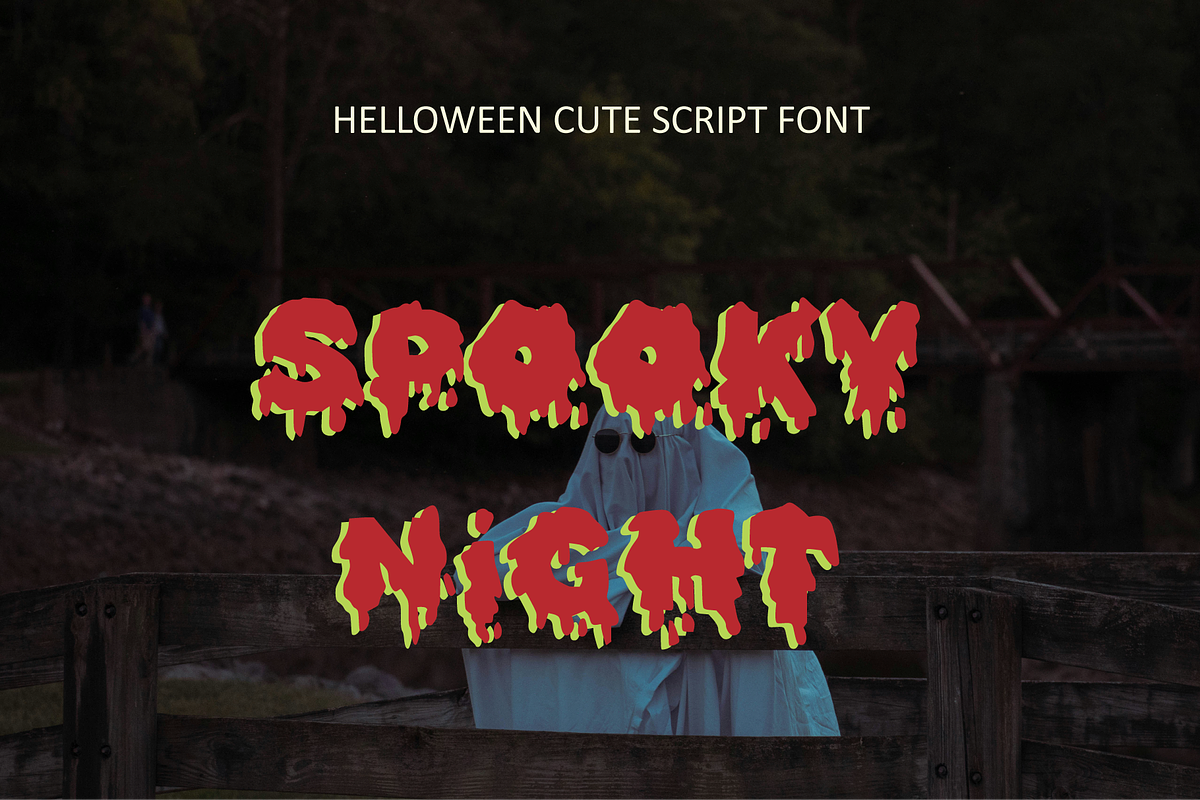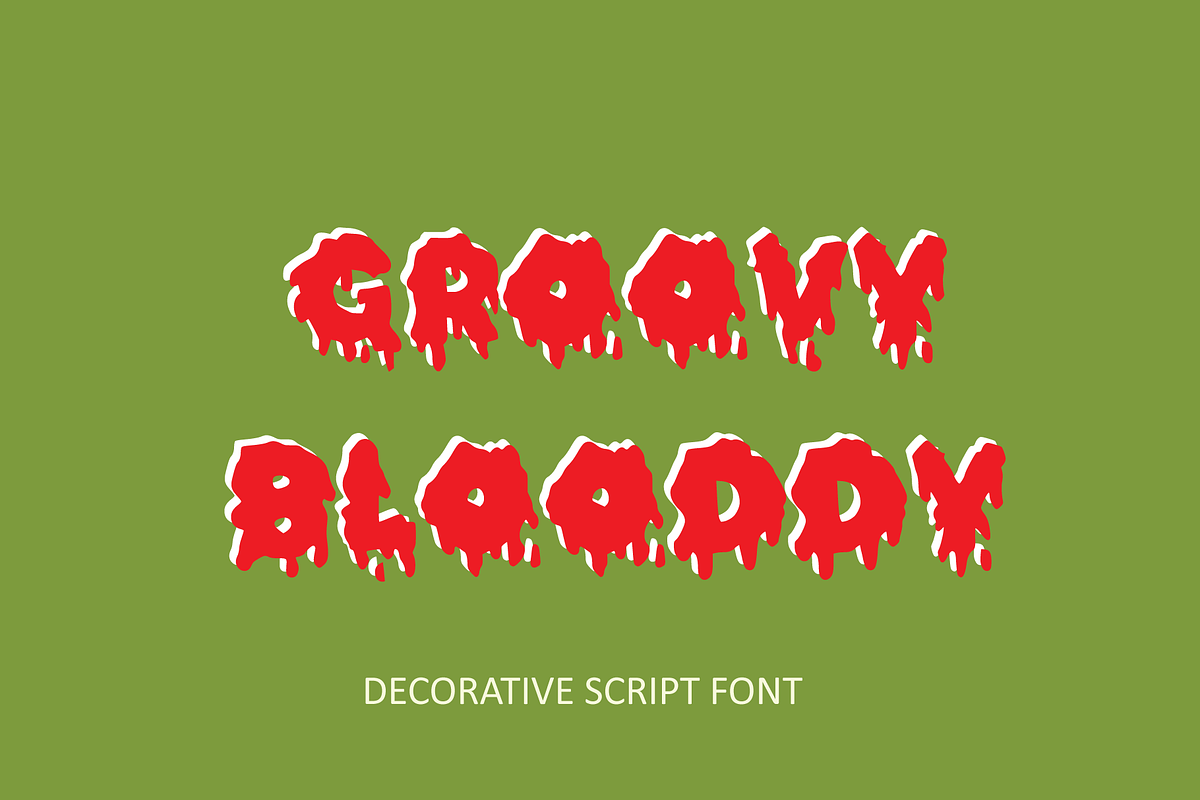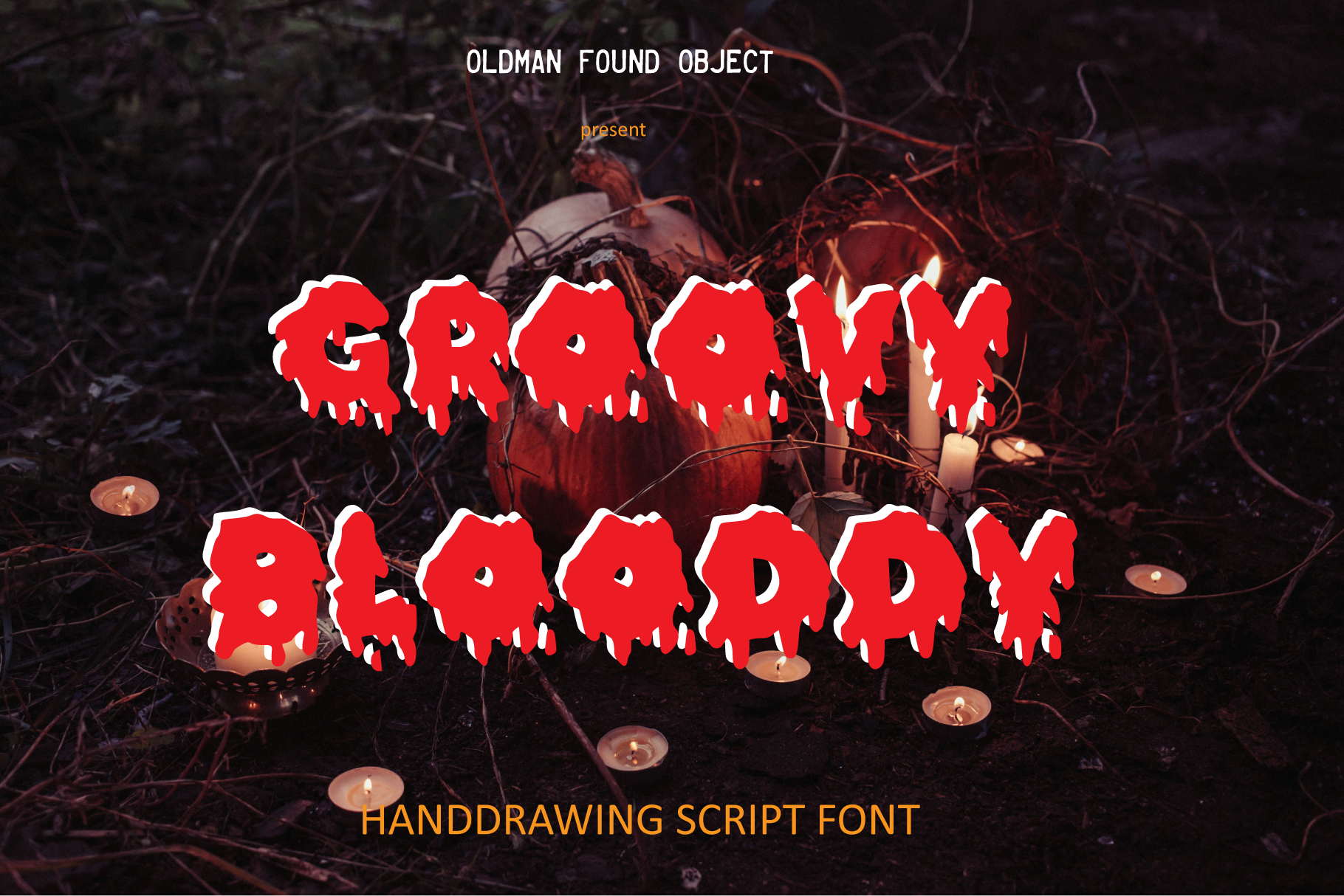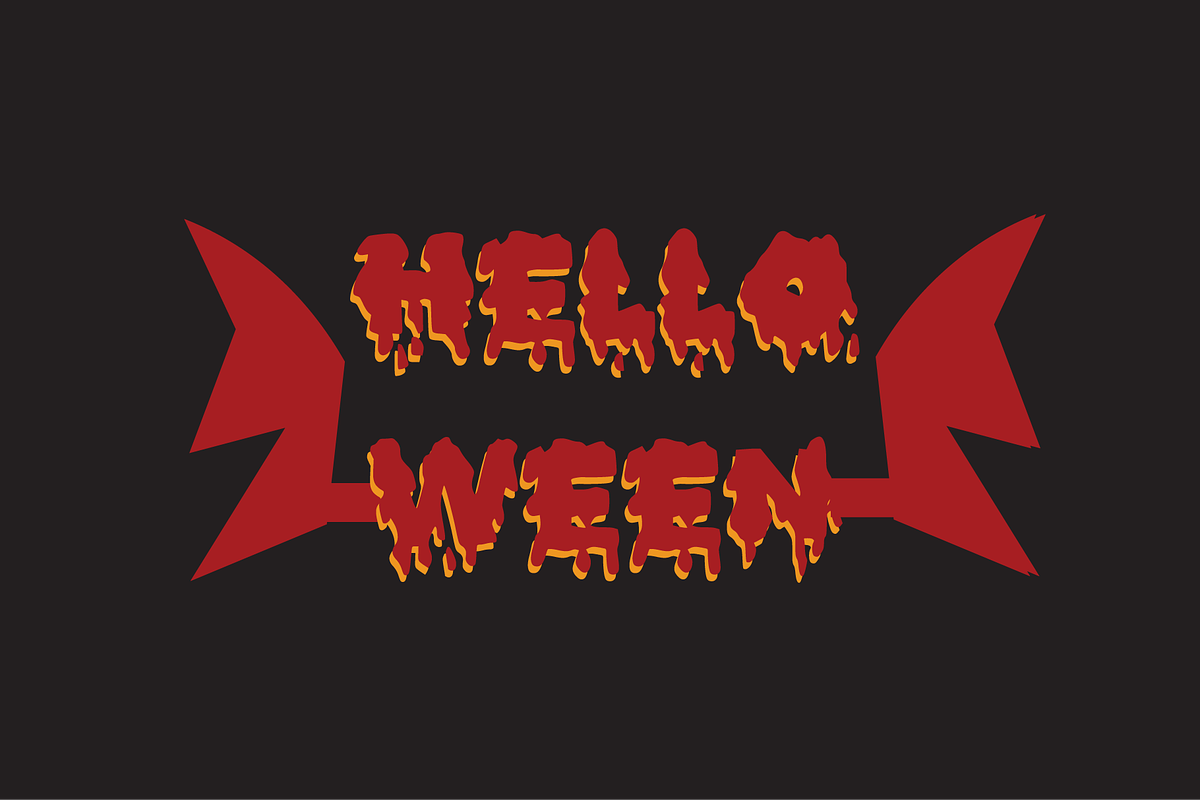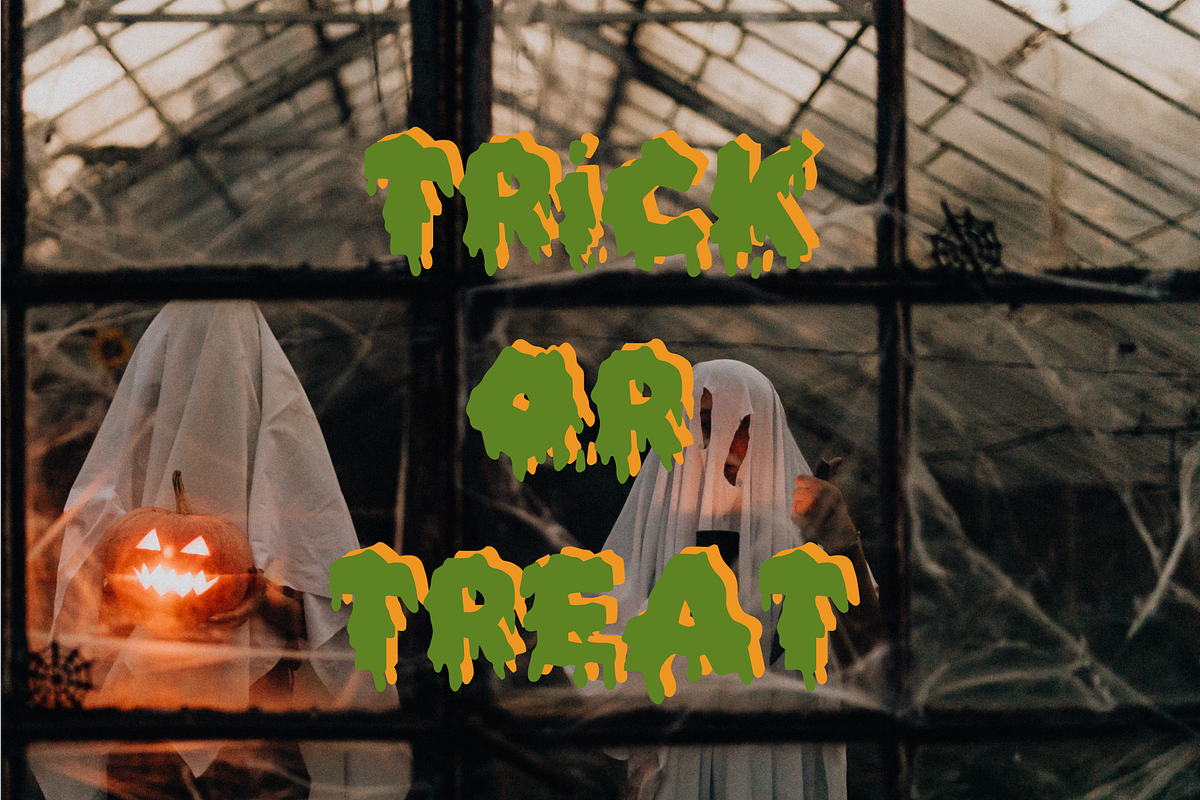
groovy blooddy script font
groovy blooddy is a bold font with spooky looks. suitable for Halloween celebrations or scary events. With stylish alternates, you can make your design looks stunning and stand out. This font also support multi language. Let this font make your project looks cool!
Uppercase & Numbers